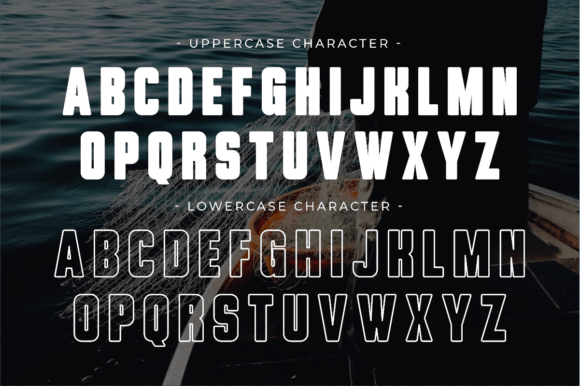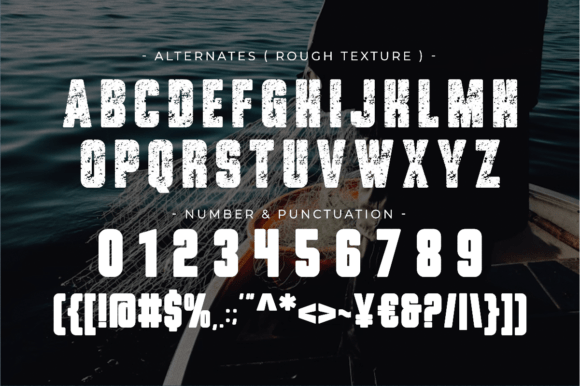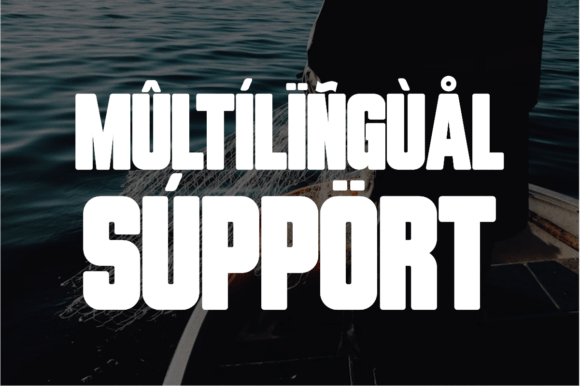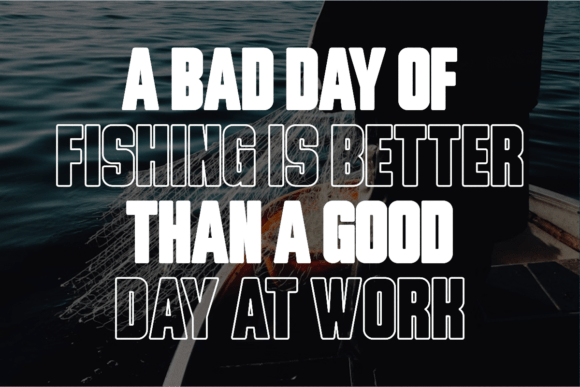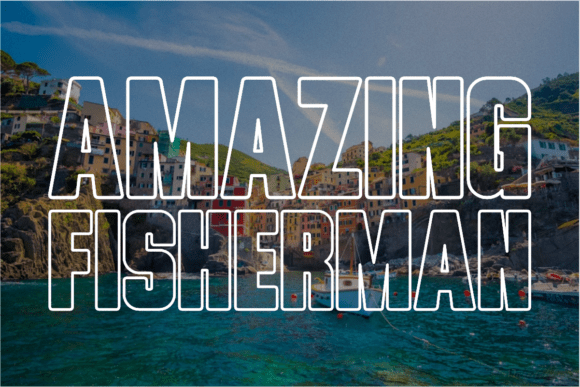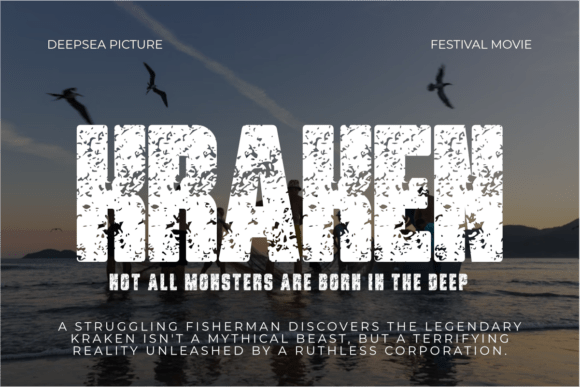
Unlocking the Power of Bolda Font
Have you ever stared at a blank canvas, wondering where to start your next design project? You envision a striking logo, an eye-catching headline, or an engaging layout that leaves a lasting impression. For designers, the right font can be the spark that sets the creative process ablaze. Enter Bolda Font, a versatile and captivating sans serif typeface that effortlessly combines modern sophistication with vintage charm.
Bolda Font is a multi-purpose ultra-condensed font designed to adapt to a wide range of creative endeavors. Its unique blend of clean lines and rounded corners creates a welcoming aesthetic that can be tailored to suit various design styles. Whether you’re working on a sleek, contemporary project or a retro-inspired masterpiece, Bolda Font offers three distinct styles to help you achieve your vision.
Bolda Font Key Features
- Font Family: Bolda Font is a sans-serif font family designed for digital use.
- Unique Characteristics: Bolda Font features a clean and modern design with distinctive geometric shapes, making it perfect for branding, advertising, and editorial content.
Designer Review: Bolda Font
Overall, I’m quite impressed with the Bolda Font. Here are some things that really work well: ✨
- Unique aesthetic: The font has a distinctive, bold style that’s perfect for headlines and titles.
- Highly legible: Even at small sizes, the font remains clear and easy to read.
- Wide range of uses: Bolda Font is suitable for various design projects, from posters and billboards to business cards and logos.
- Not ideal for body text: While the font is great for headlines, it may be too bold and overpowering for large blocks of text.
- Limited language support: Bolda Font may not include all the characters and languages you need for your specific project.
Overall, I think Bolda Font is a solid choice for designers looking for a bold, eye-catching font. While it may have some limitations, its unique style and high legibility make it a great option for a wide range of design projects.
The Bolda font is a versatile and modern font that works well for a variety of applications, including:
- Headings and titles.
- Body text for creative and modern designs.
- Logos and branding materials.